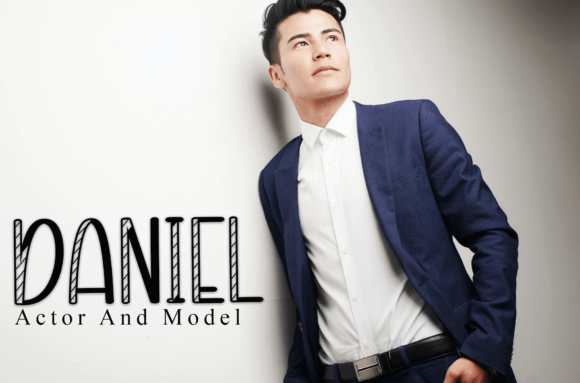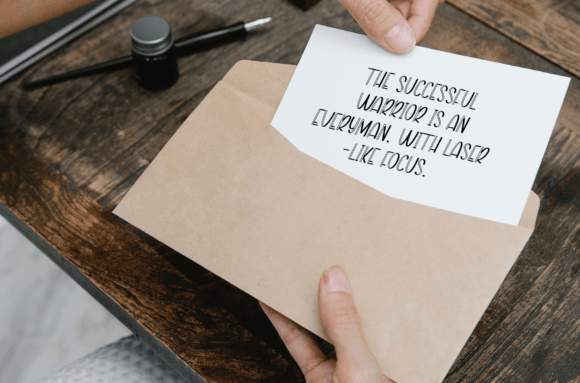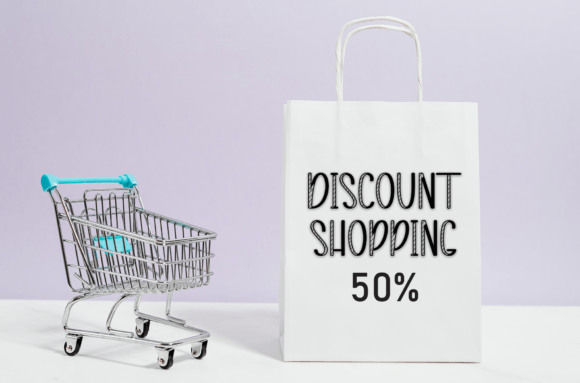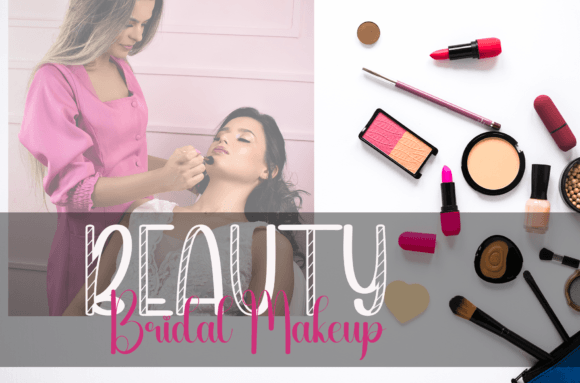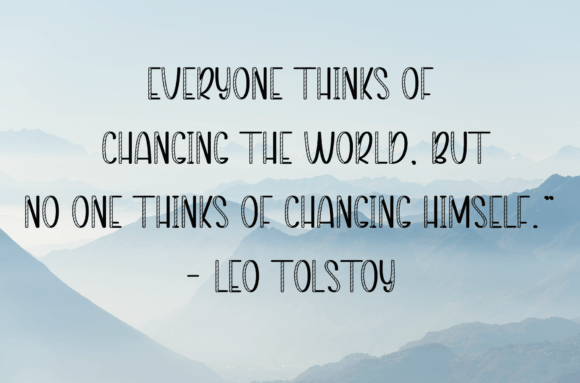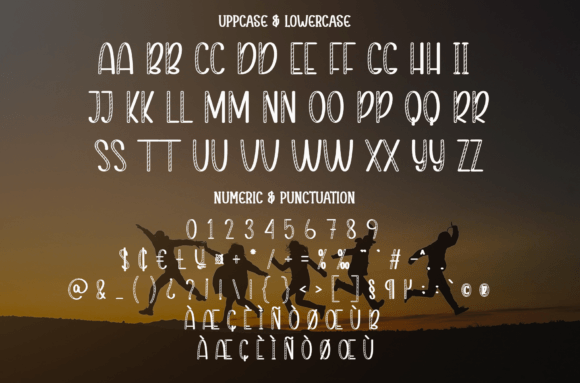
Introducing Happy Nightday Font: The Sweet and Friendly Handwritten Font for Your Design Needs
Are you a designer or crafter looking for a font that can add a touch of whimsy and fun to your designs? Look no further than Happy Nightday Font! This sweet and friendly handwritten font is perfect for creating wedding invitations, cards, and other designs that require a playful and charming touch.
What Makes Happy Nightday Font So Special?
Happy Nightday Font is a one-of-a-kind handwritten font that is both cute and fun. Its unique and charming lettering style makes it ideal for a variety of design projects, from wedding invitations and cards to posters, flyers, and more. The font’s friendly and approachable feel makes it perfect for designs that require a personal touch.
Wedding invitations and cards are a great way to showcase the Happy Nightday Font. The font’s sweet and romantic feel makes it perfect for wedding designs, and its playful touch adds a unique and creative spin to traditional wedding stationery. Whether you’re designing a formal or informal wedding invitation, Happy Nightday Font is sure to make your design stand out.
Why Designers and Crafters Love Happy Nightday Font
Designers and crafters love Happy Nightday Font for its versatility and ease of use. The font is easy to read and works well in a variety of design contexts, from digital designs to print materials. Additionally, the font’s friendly and approachable feel makes it perfect for designs that require a personal touch.
Key Features of Happy Nightday Font
- Cute and Fun: Happy Nightday Font is a sweet and friendly handwritten font that adds a playful touch to any design.
- Perfect for Wedding Invitations: The font’s romantic and whimsical feel makes it ideal for wedding invitations and cards.
- Easy to Read: The font is easy to read and works well in a variety of design contexts, from digital designs to print materials.
- Versatile: Happy Nightday Font can be used for a variety of design projects, from posters and flyers to social media graphics and more.
How to Use Happy Nightday Font in Your Designs
Tips and Tricks for Getting the Most Out of Happy Nightday Font
- Pair with Other Fonts: Happy Nightday Font pairs well with other fonts, such as sans-serif fonts or script fonts. Experiment with different font combinations to create a unique and eye-catching design.
- Use in Combination with Images: Happy Nightday Font works well in combination with images, such as illustrations or photographs. Use the font to add a personal touch to your design.
- Experiment with Colors: Happy Nightday Font looks great in a variety of colors, from bright and bold to soft and pastel. Experiment with different colors to find the perfect look for your design.
Happy Nightday Font is a sweet and friendly handwritten font that is perfect for designers and crafters looking to add a touch of whimsy and fun to their designs. With its cute and playful feel, Happy Nightday Font is ideal for wedding invitations, cards, and other designs that require a personal touch. Download Happy Nightday Font today and start creating your own unique and eye-catching designs!